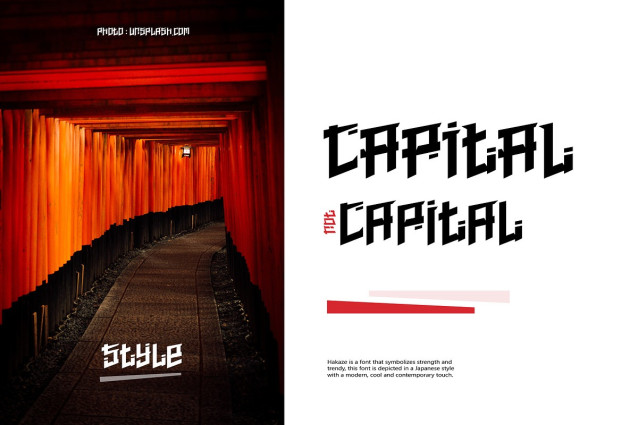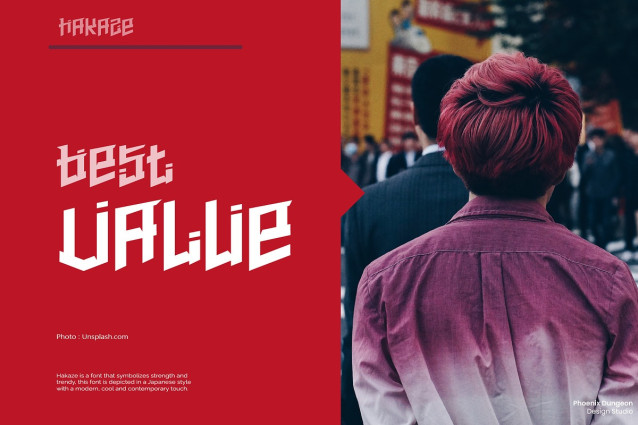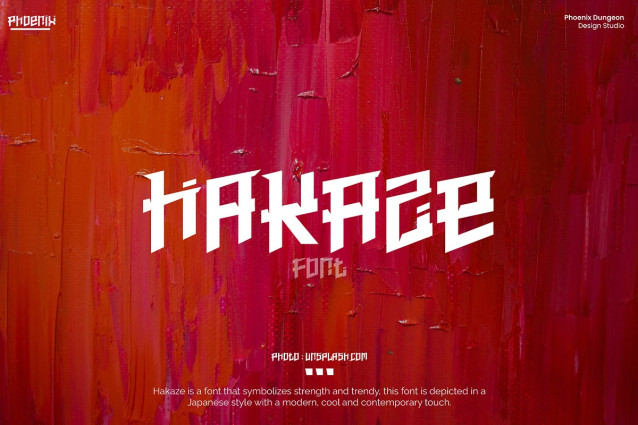
Hakaze Display Font
Hakaze Display Font is a font that symbolizes strength and trendy, this font is depicted in a Japanese style with a modern, cool, and contemporary touch.